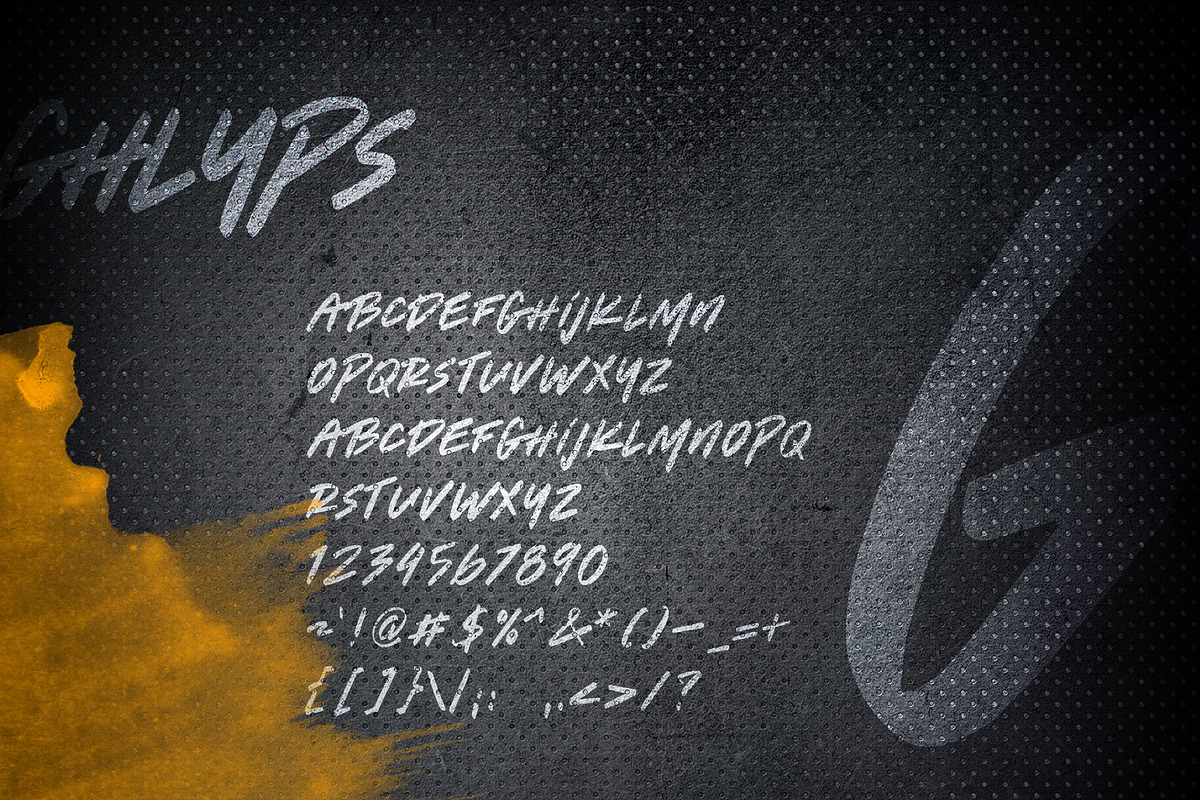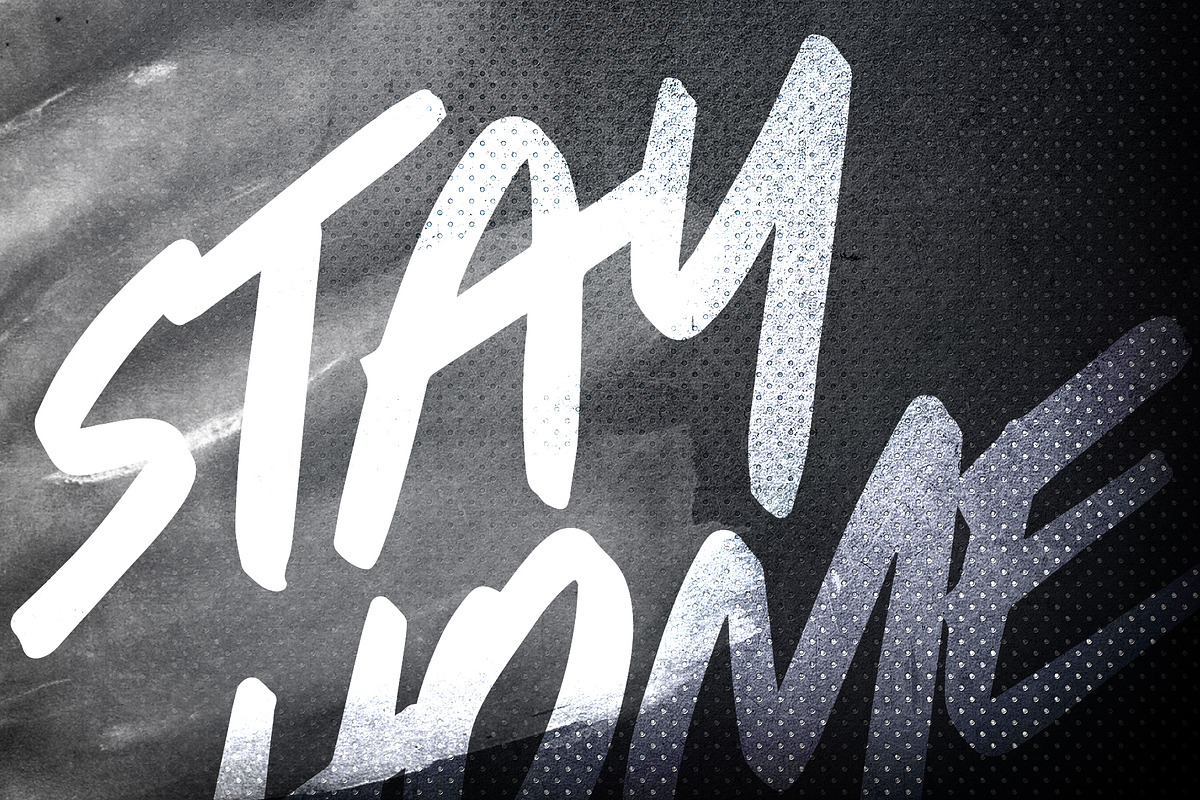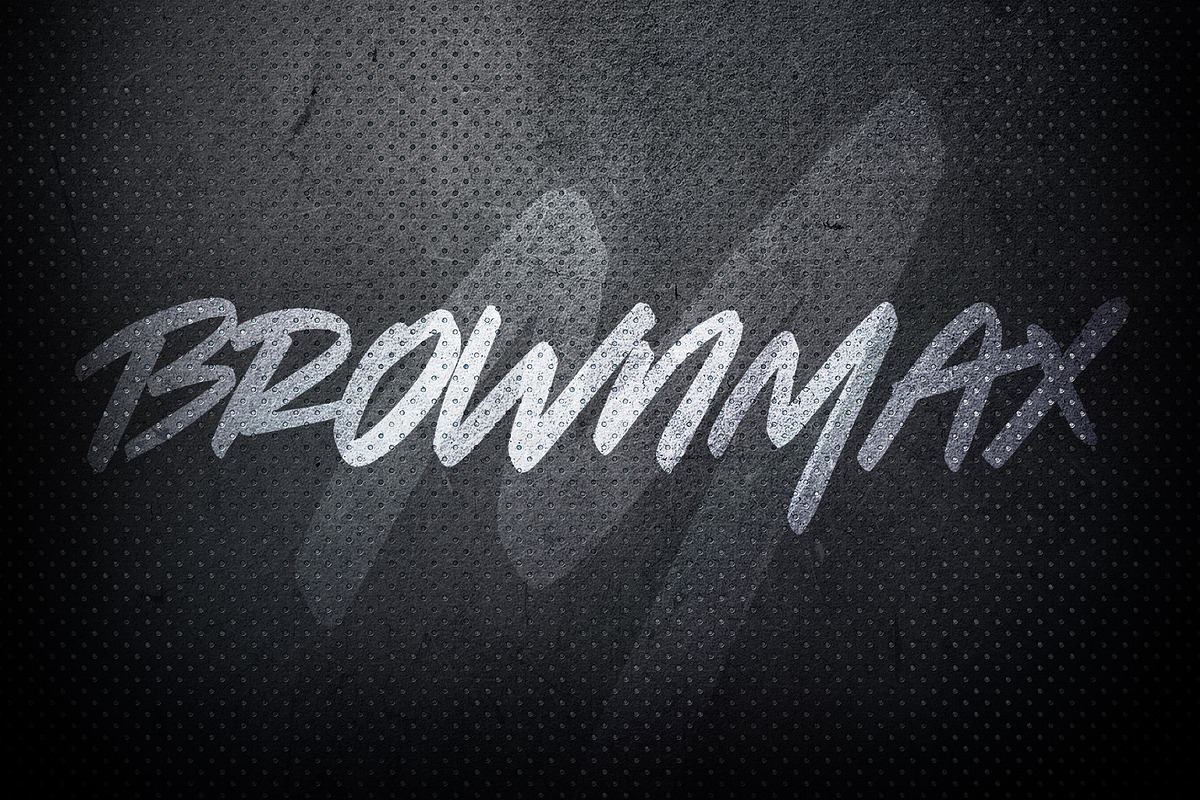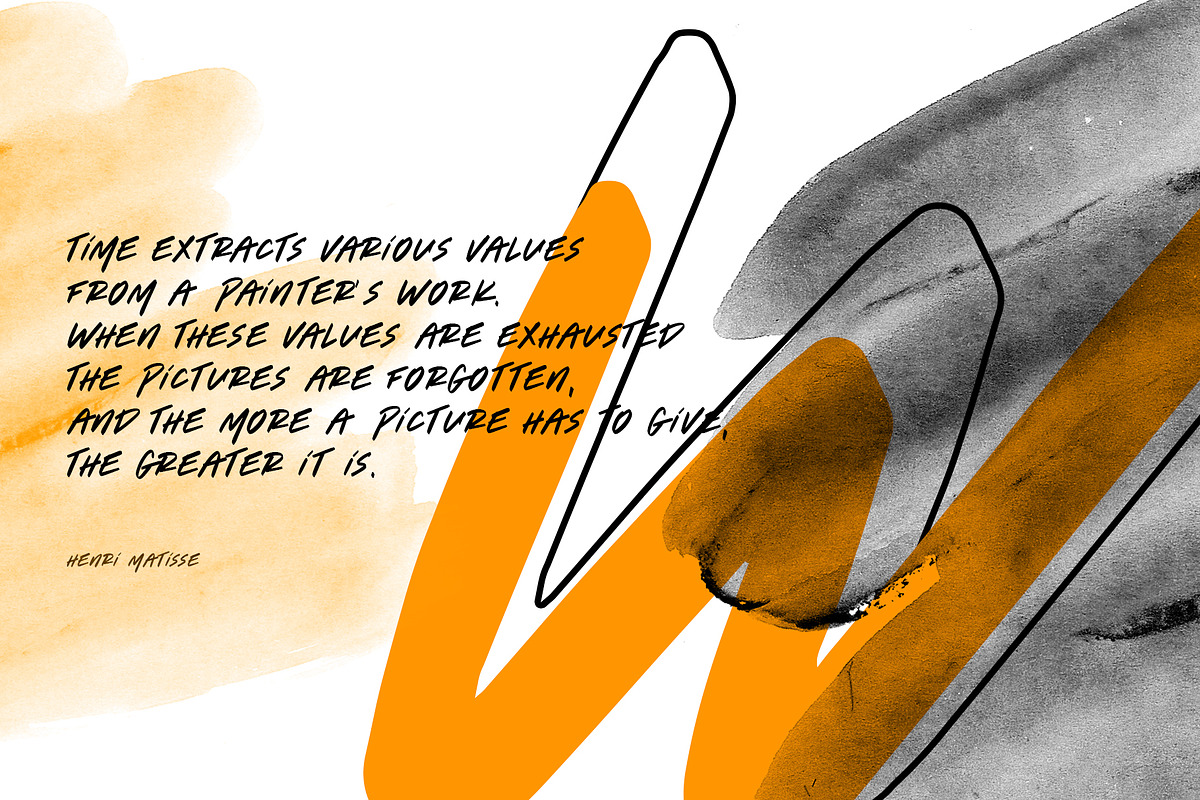
Brownmax
Brownmax is a font inspired by manual brush writing combined with an aggressive writing style but still looks neat and clean. Suitable for a headline, poster design, t-shirt cd cover album or something that needs bold and clean style.